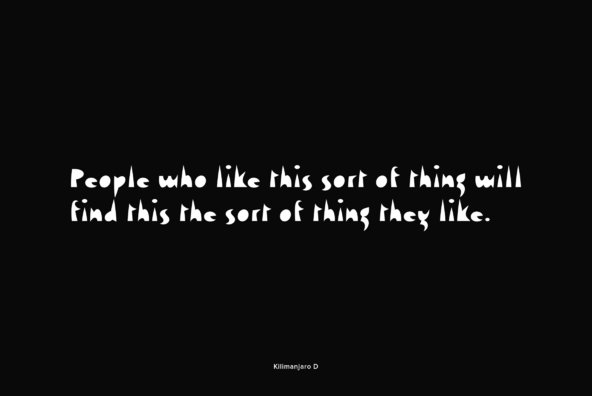
Kilimanjaro
Designed by Hans-Jürgen Ellenberger in 2004, Kilimanjaro is super quirky and odd retro style font design by type house URW. Works great in themed, display and childrens projects.